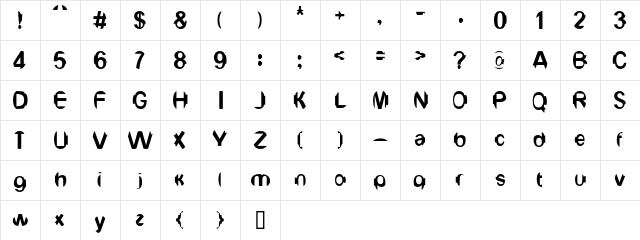
Unimportant Regular
| Foundry | Jane Djurinskaya, Jovanny Lemonad |
| Designer | Jane Djurinskaya, Jovanny Lemonad |
Design Context for Unimportant Typeface
Unimportant is a composed and adaptable typeface that performs quietly and consistently across a wide range of design contexts.